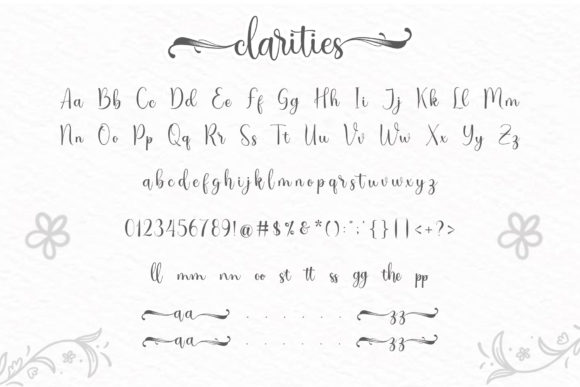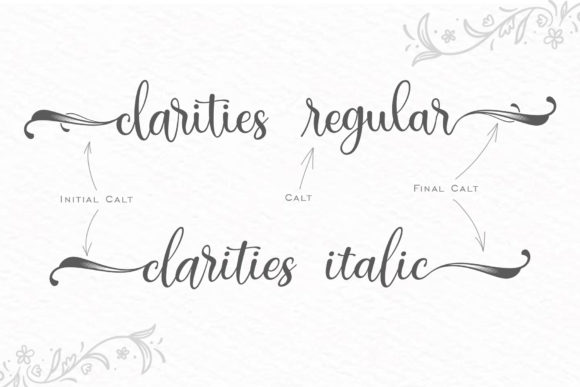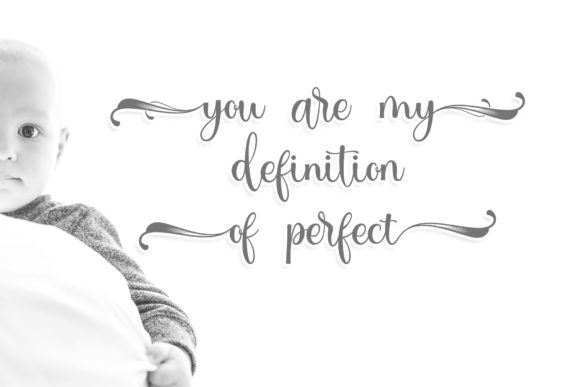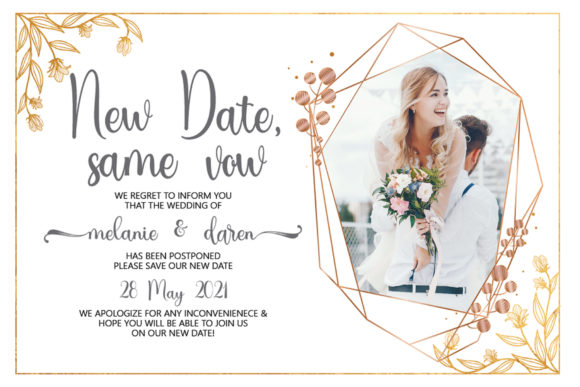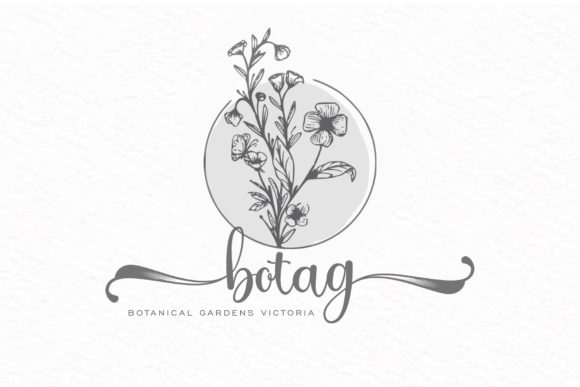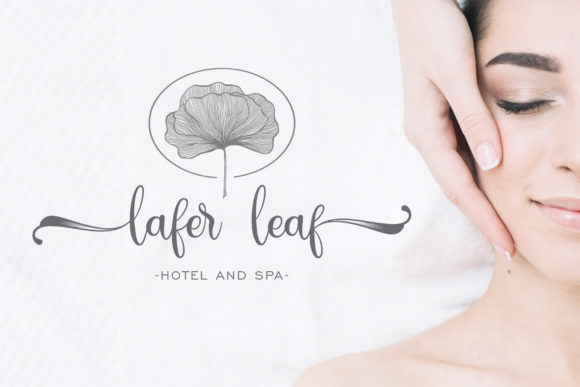
Introduction to Clarities Font
Clarities is a timeless handwritten font.
It looks lovely on wedding invitations, thank you cards, quotes, greeting cards, logos, business cards and every other design which needs a handwritten touch This font is PUA encoded which means you can access all of the glyphs and swashes with ease.
Key Features of Clarities Font